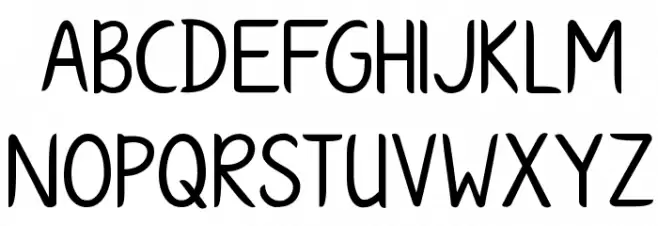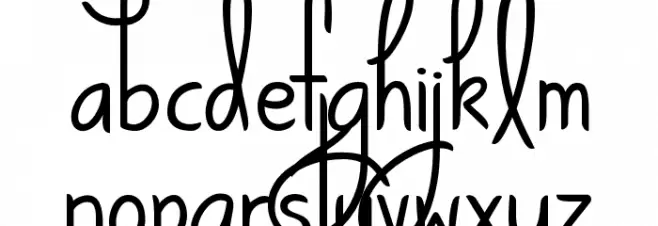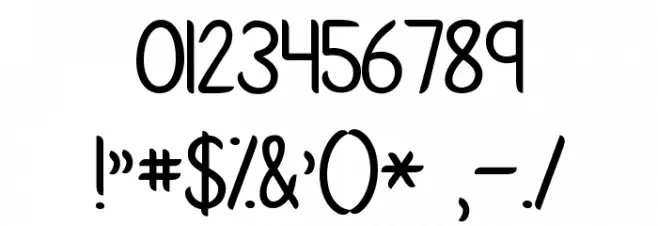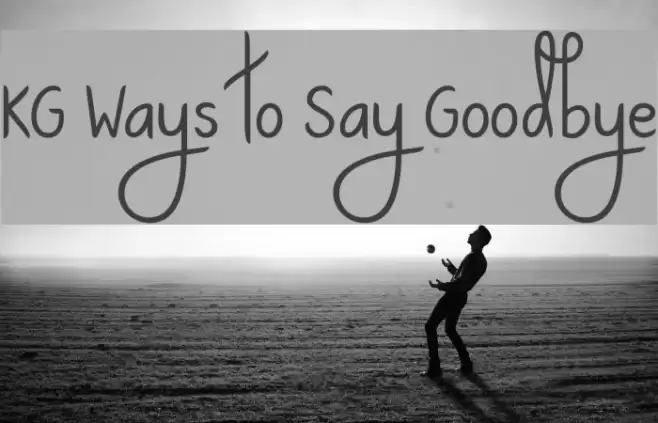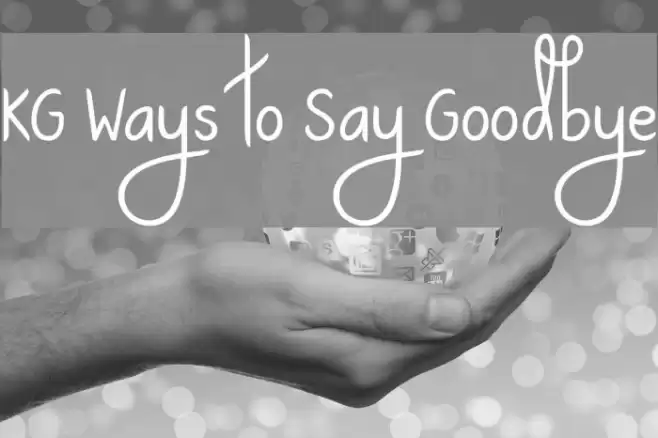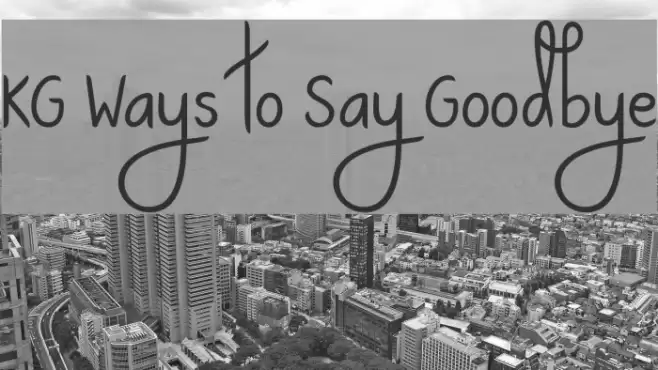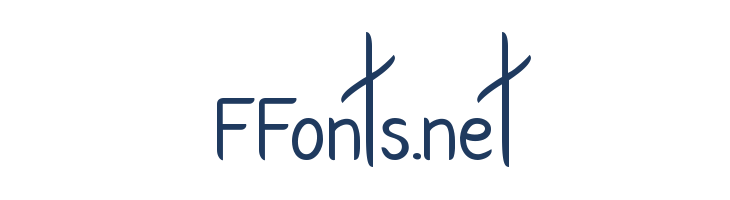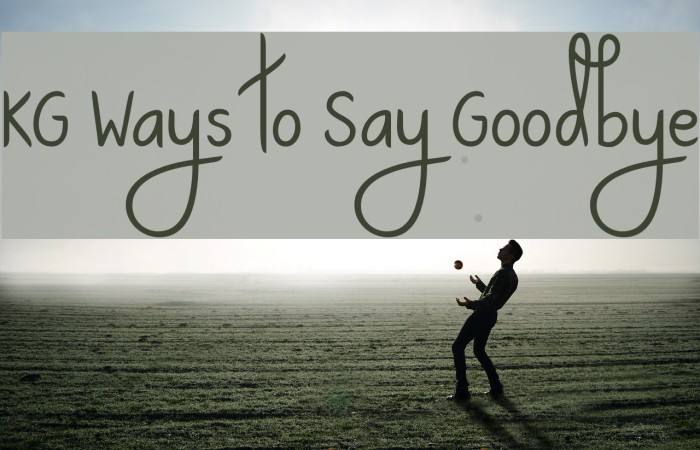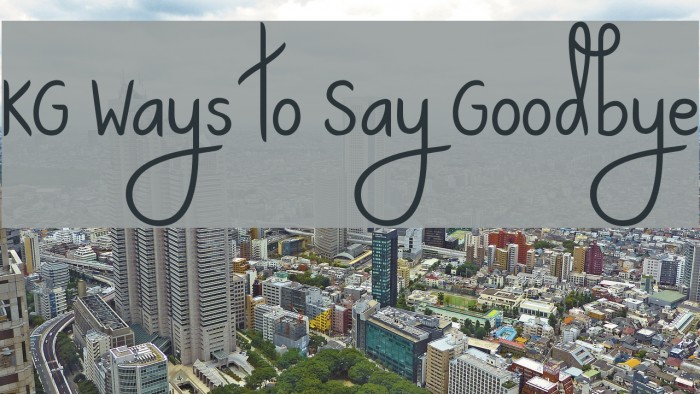
KG Ways to Say Goodbye
This font features a playful and whimsical style with a handwritten appearance. The characters are slightly irregular, giving it a casual and friendly vibe. Uppercase letters are tall and narrow, while lowercase letters have a more rounded and flowing form. The numbers are consistent with the overall style, maintaining the playful aesthetic. Special characters are creatively designed, adding to the font's unique charm. This font is suitable for projects that require a personal touch or a fun, informal look.
A playful, handwritten-style font with a whimsical and casual appearance.
- Proposed Projects: Ideal for greeting cards, children's books, playful branding, and informal invitations.
- Overall Style: Playful, Casual
- Use Case: Logos, Invitations, Greeting Cards